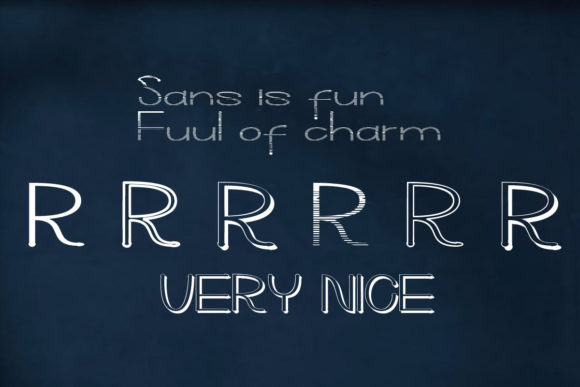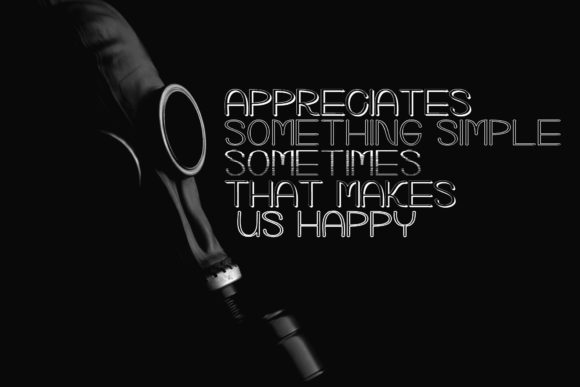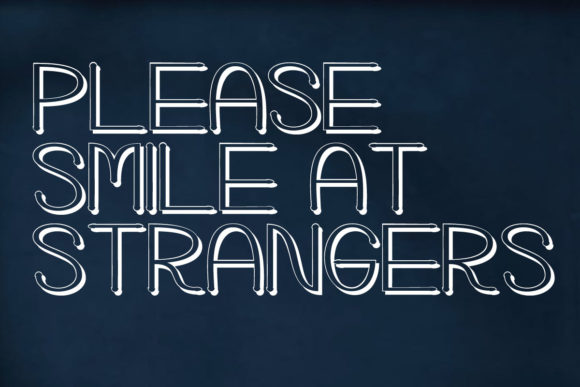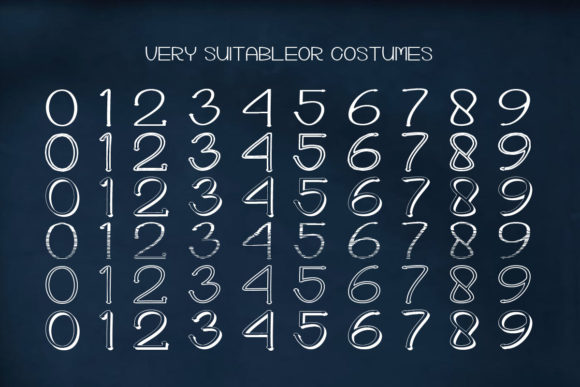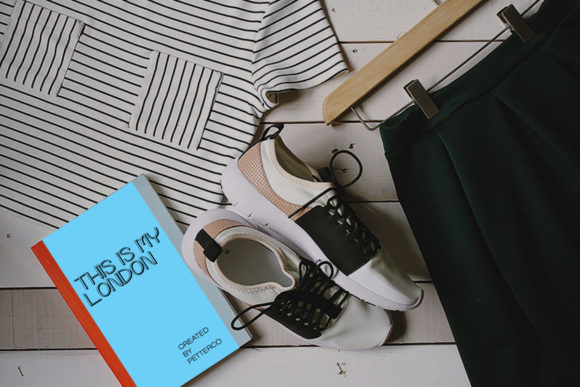
Introduction to Full Charm Font
Have you ever stared at a blank page, eager to bring your design idea to life, only to be held back by the perfect font? You know, that one font that will elevate your entire project and make it truly stand out. Well, we’ve got the solution for you – the incredible Full Charm Font!
This modern sans serif font is a game-changer for designers, offering a high-quality, professional look that’s perfect for any creative project. With its sleek and smart feel, Full Charm Font is sure to make your design shine, whether you’re working on a free download or a paid project. Plus, its transparent background makes it a versatile design resource that’s easy to use and customize.
Key Features of Full Charm Font
- Unique and charming characters make it perfect for adding a personal touch to any creative project.
Honest Review: Full Charm Font
As a designer, I’m always on the lookout for high-quality design resources to elevate my creative projects. Recently, I had the chance to try out the Full Charm Font, and I’m excited to share my honest review with you.
What works well: ✨ The Full Charm Font is incredibly versatile, with a wide range of characters and styles to choose from. The font is perfect for creating a unique and eye-catching visual identity for your project. I also appreciate that the font comes with a transparent background, making it easy to layer over other design elements.
- Wide range of characters and styles
However, there are a few limitations to keep in mind: ⚠️ The font may not be suitable for large-scale text, as the characters can appear quite delicate. Additionally, some of the styles may not be as consistent as I would have liked.
Overall, I’m impressed with the Full Charm Font. While it may not be perfect, it’s a great addition to any designer’s toolkit. With its high quality and creative possibilities, I highly recommend it for any free download design project.
The Full Charm Font is a high-quality design resource perfect for any creative project. With its unique and stylish characters, it’s ideal for adding a touch of elegance to your work.
Tips for Getting the Most Out of Full Charm Font
To get the most out of the Full Charm Font, try experimenting with different font sizes, colors, and combinations to create unique and eye-catching designs.